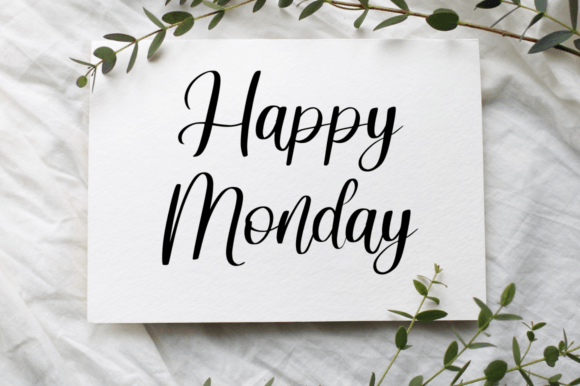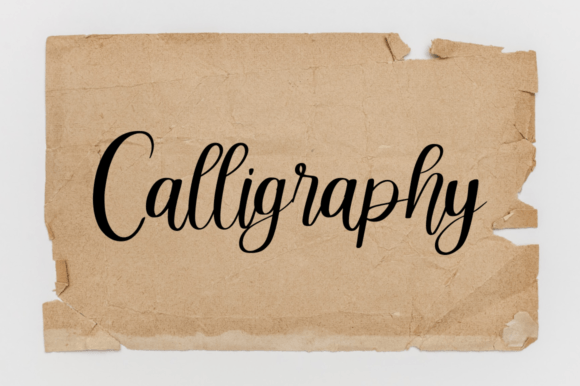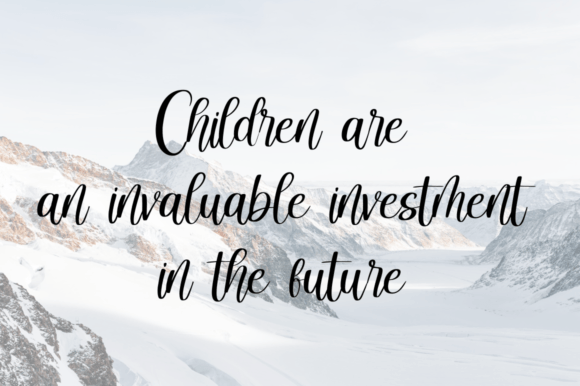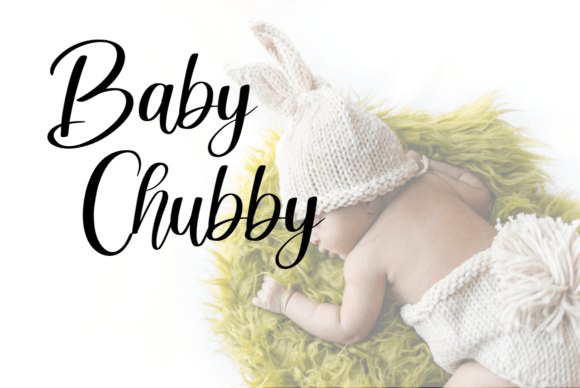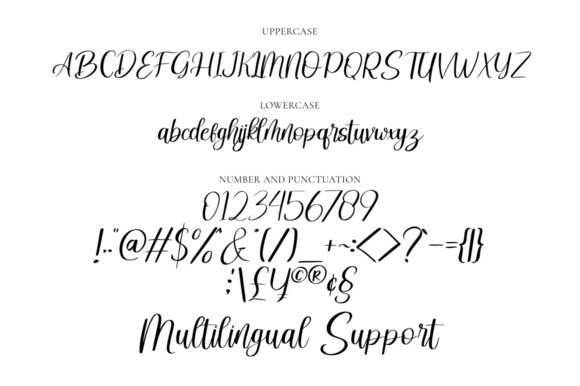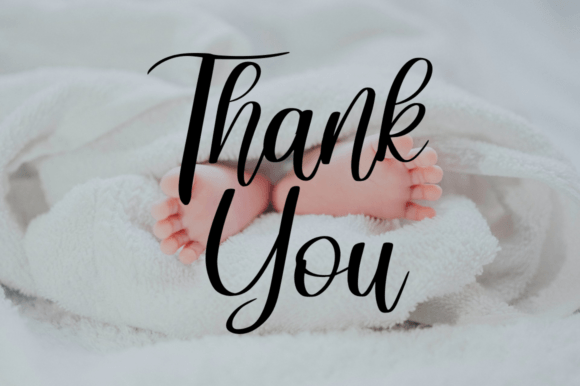
Introduction to Barbie Someone Font
The ‘Barbie SomeOne’ calligraphy font is a work of art that brings the beauty of calligraphy into your designs.
With this font, you don’t just get a typographic tool; you get a piece of art that transforms words into visually stunning works of art .
Key Features of Barbie Someone Font